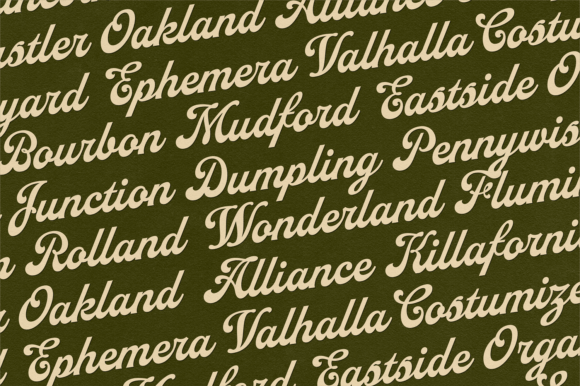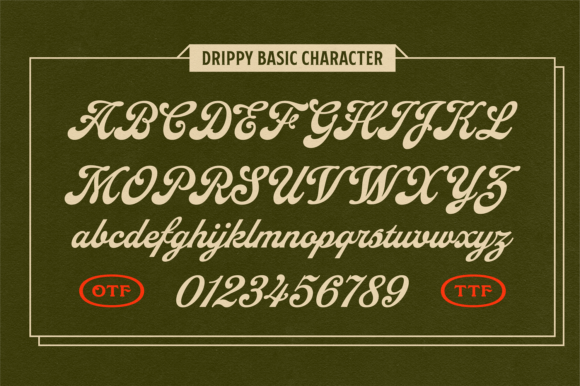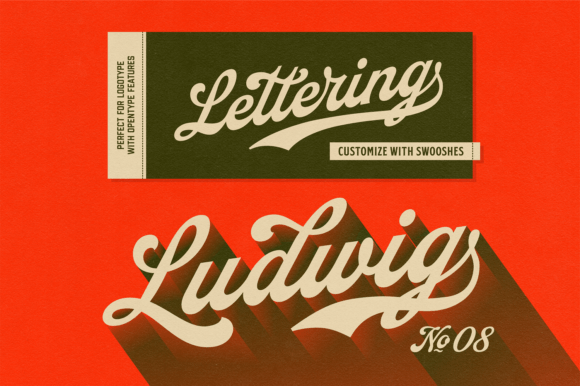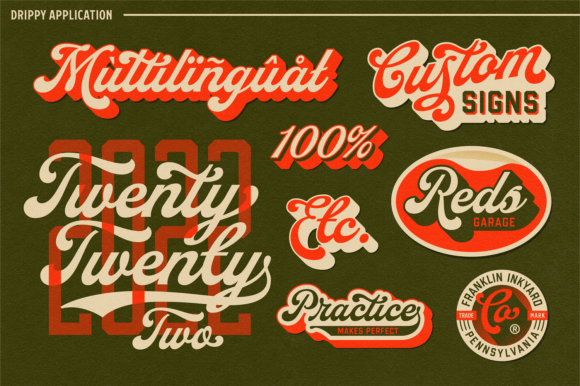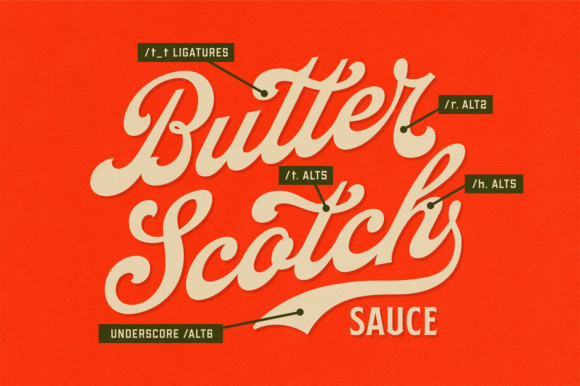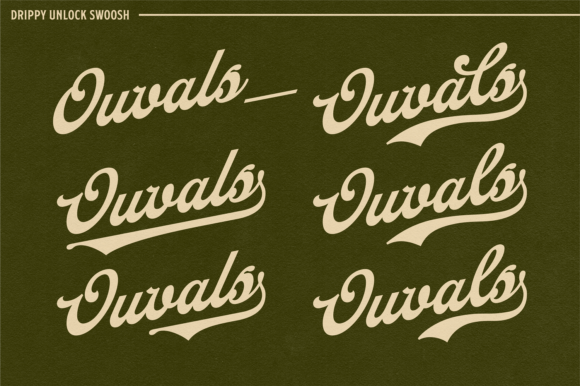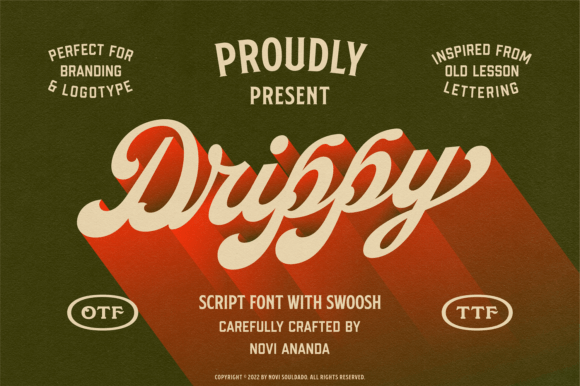
Introducing Drippy Font: A Unique Blend of Classic and Modern Retro Vibes
In the world of typography, fonts play a crucial role in conveying the tone and personality of a brand. With the ever-evolving landscape of design trends, it’s essential to stay ahead of the curve with fresh and exciting fonts. One such font that has caught the attention of designers and crafters alike is Drippy Font. In this article, we’ll dive into the story behind Drippy, its features, and why it’s an excellent choice for your next design project.
The Inspiration Behind Drippy Font
Drippy Font draws inspiration from the archives of vintage educational lettering books, posters, and decorative materials from the past. The creator of Drippy sought to bridge the gap between classic historical ambiance and modern retro vibes, resulting in a font that’s both nostalgic and trendy. By studying the visual trends of yesteryear, the designer aimed to craft a font that would not only pay homage to the past but also cater to the demands of contemporary design.
What Makes Drippy Font Stand Out
One of the distinctive features of Drippy Font is its swashy touch on each letter. This unique element sets Drippy apart from other fonts in the industry, making it a remarkable addition to any design project. The swashes add a touch of elegance and sophistication, allowing designers to create stunning visuals that capture the essence of their brand or message.
Drippy Font is an incredibly versatile font that can be used across a wide range of design applications. Whether you’re working on a logotype, branding project, label design, sign painting, or advertising campaign, Drippy is an excellent choice. Its unique blend of classic and modern elements makes it suitable for various industries, from fashion and beauty to food and beverage.
Drippy Font is PUA (Private Use Area) encoded, which means that designers can access all the amazing glyphs and ligatures with ease. This feature allows for greater flexibility and creativity, enabling designers to experiment with different combinations of letters and swashes to create truly unique designs.
| Font Name | Drippy Font |
| Author | NoviSouldado |